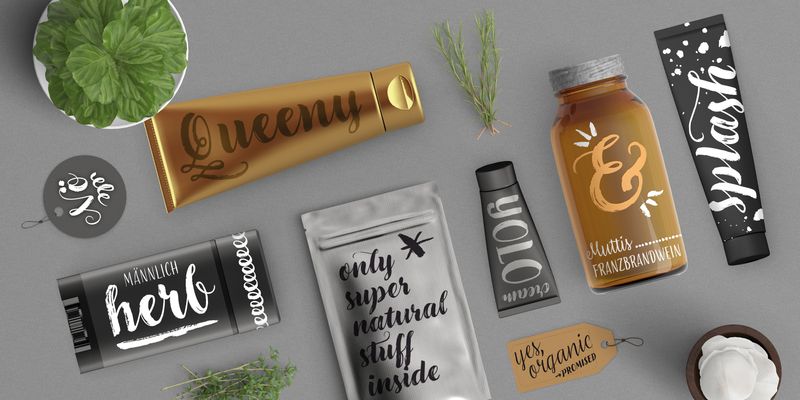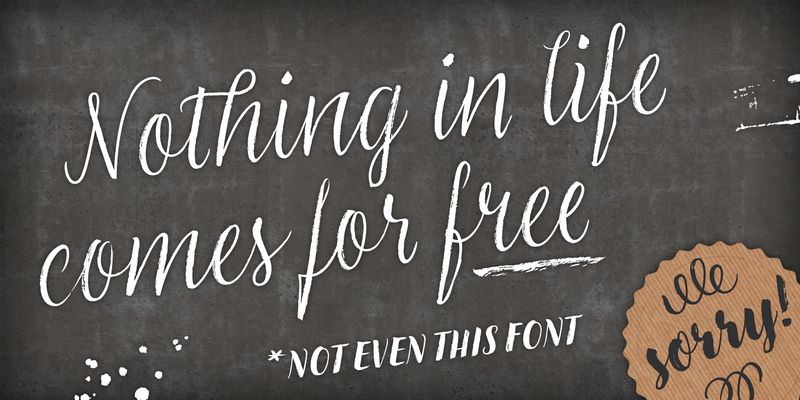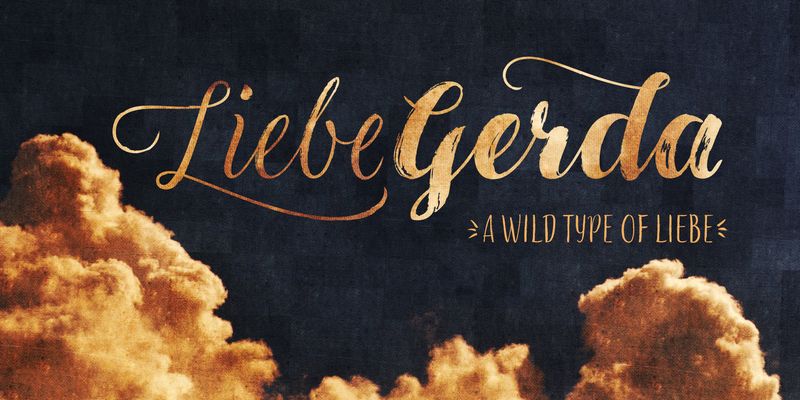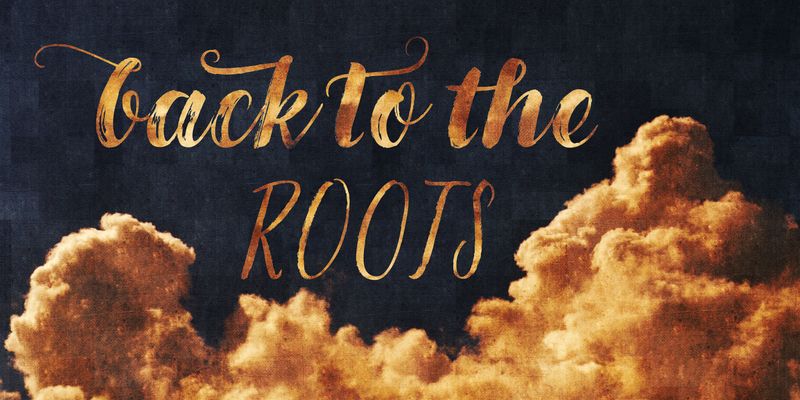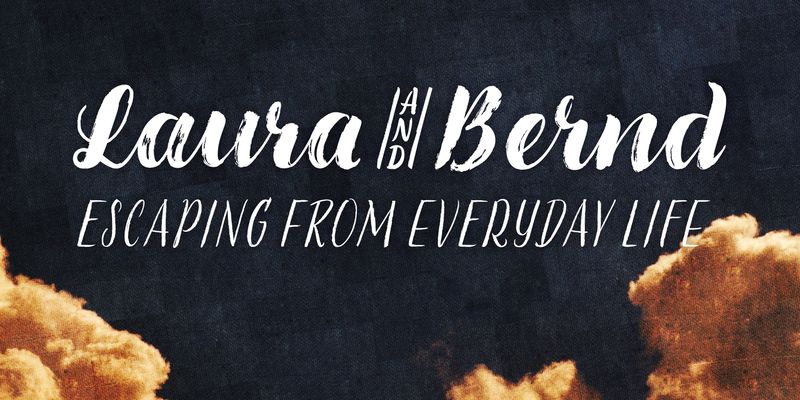
LiebeGerda is an effortless-but-refined, spontaneous-but-elegant brush font. She is ready for your next project, and she wants to add that little crafty something that makes the difference. Her natural breath of fresh air lets you escape those same old monotonous script fonts you’ve been using.
OpenType magic varies LiebeGerda’s letterforms: Most characters have no less than three different variations that are automatically shuffled and inserted as you type. Plus, the “All-Caps” OpenType feature exchanges uppercase letters with less-swashy variants. Now you know why every one of the four styles contains more than 1,200 characters!
Ulrike of LiebeFonts painted LiebeGerda’s four styles individually from scratch and carefully adjusted every detail by hand. Rather than being one typeface with different weights, LiebeGerda is a package of four individual fonts that go together really well. Ulrike’s high level of type-nerdy craftsmanship shows. When you use LiebeGerda, your designs will easily convince your audience that they’re looking at a hand-crafted piece of lettering. Feel free to add a few of the stacked ligatures like “the”, “for”, and “new” to round off the illusion.
Last but not least, LiebeGerda has a lot more detail than most other brush fonts. That means there’s no ugly, lazy bézier artifacts in the brush traces. You can print words at billboard size, and people will still believe they smell the paint from your brush!